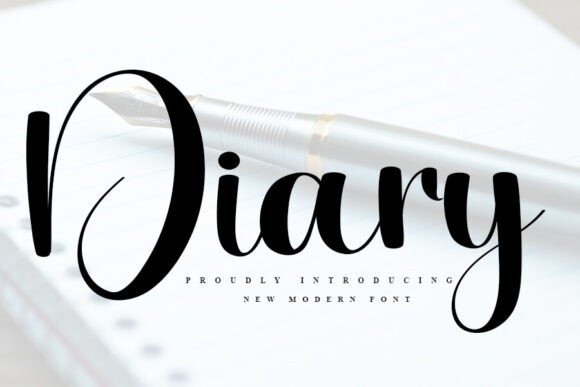
Unlock the Power of Storytelling with the Diary Font
Have you ever stumbled upon a beautifully crafted design that instantly sparks your imagination and inspires you to create? For designers, this moment of creative ignition is what drives us to push boundaries and innovate. It’s the moment when the perfect font, the perfect color palette, and the perfect layout come together to tell a story that resonates with our audience.
That’s where the Diary Font comes in – a uniquely captivating and contemporary font that’s designed to elevate your design standards. Whether you’re creating a YouTube banner, a logo mockup, or a wedding invitation, the Diary Font is the perfect tool to add a touch of professionalism, creativity, and elegance to your work.
Diary Font Key Features
- Unique Characteristics: Diary Font features a unique, handwritten design with a personal touch, making it perfect for creating a sense of intimacy and warmth in digital and print content.
Review of Diary Font
Overall, I think Diary Font has some great qualities, but it’s not without its limitations. ✨ First of all, I love the unique and cursive style of the font. It’s perfect for creating a warm and inviting atmosphere in digital products. The font is also highly legible, even at smaller font sizes.
Some of the standout features of Diary Font include:
- ✨ Elegant and cursive design
- ✨ Highly legible, even at smaller font sizes
- ✨ Suitable for a wide range of digital products
- ⚠️ Limited character set: Diary Font only includes a limited set of characters, which may make it less suitable for products that require a wide range of languages or special characters.
- ⚠️ Not suitable for headings: While Diary Font is great for body text, it may not be the best choice for headings due to its cursive style, which can be difficult to read at larger font sizes.
Overall, I think Diary Font is a solid choice for digital products that require a warm and inviting atmosphere. However, it’s essential to consider its limitations and suitability for specific use cases before making a final decision.
Diary Font Practical Application Guide
Tips for Getting the Most Out of Diary Font
Use the Diary Font for creative projects such as journaling, scrapbooking, or designing invitations. Experiment with different font sizes and styles to create a unique look. You can also combine the Diary Font with other fonts for a visually appealing design.
The Diary Font is ideal for personal projects such as:
- Journaling and scrapbooking
- Designing invitations and greeting cards
- Creating digital art and illustrations